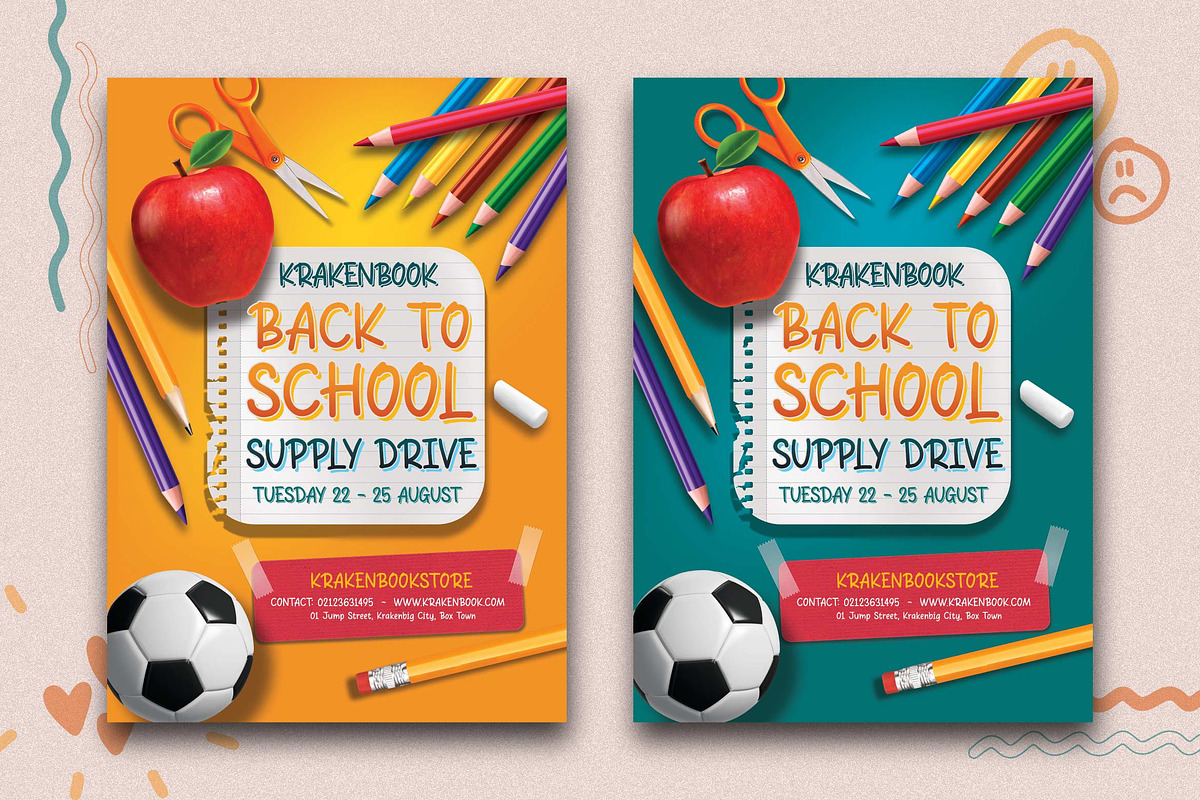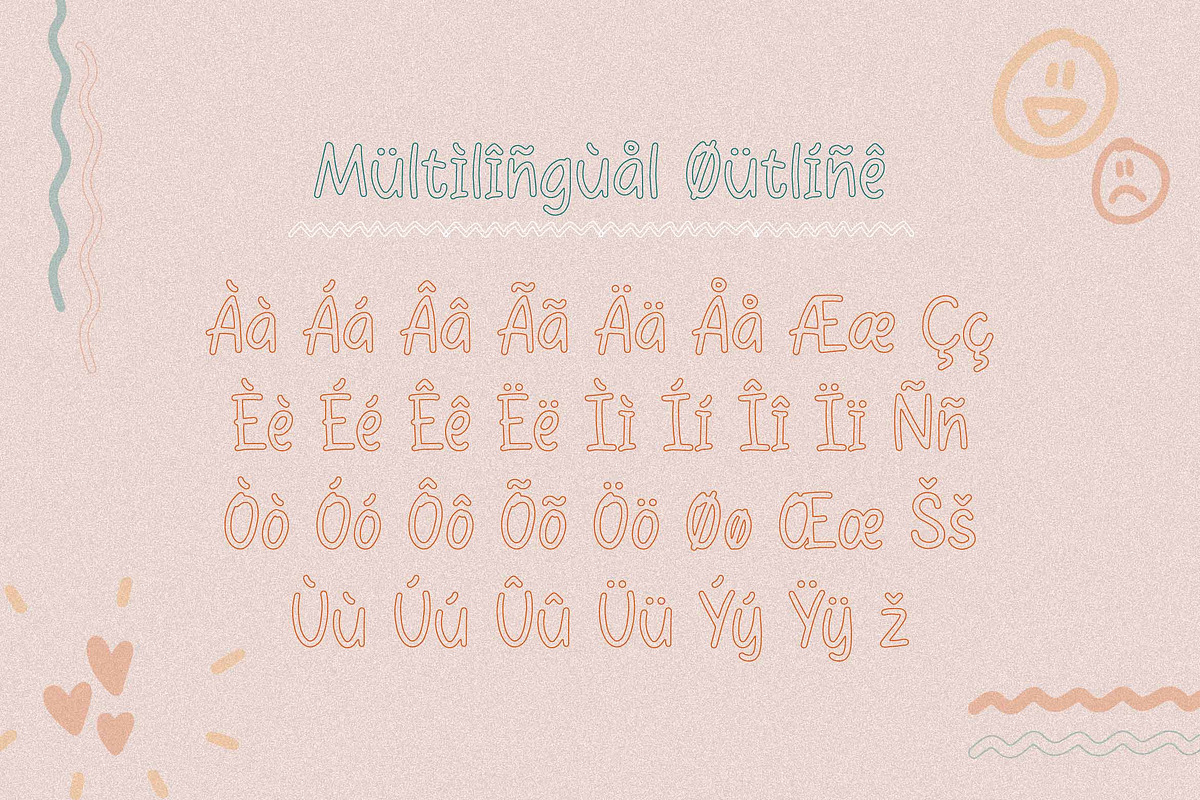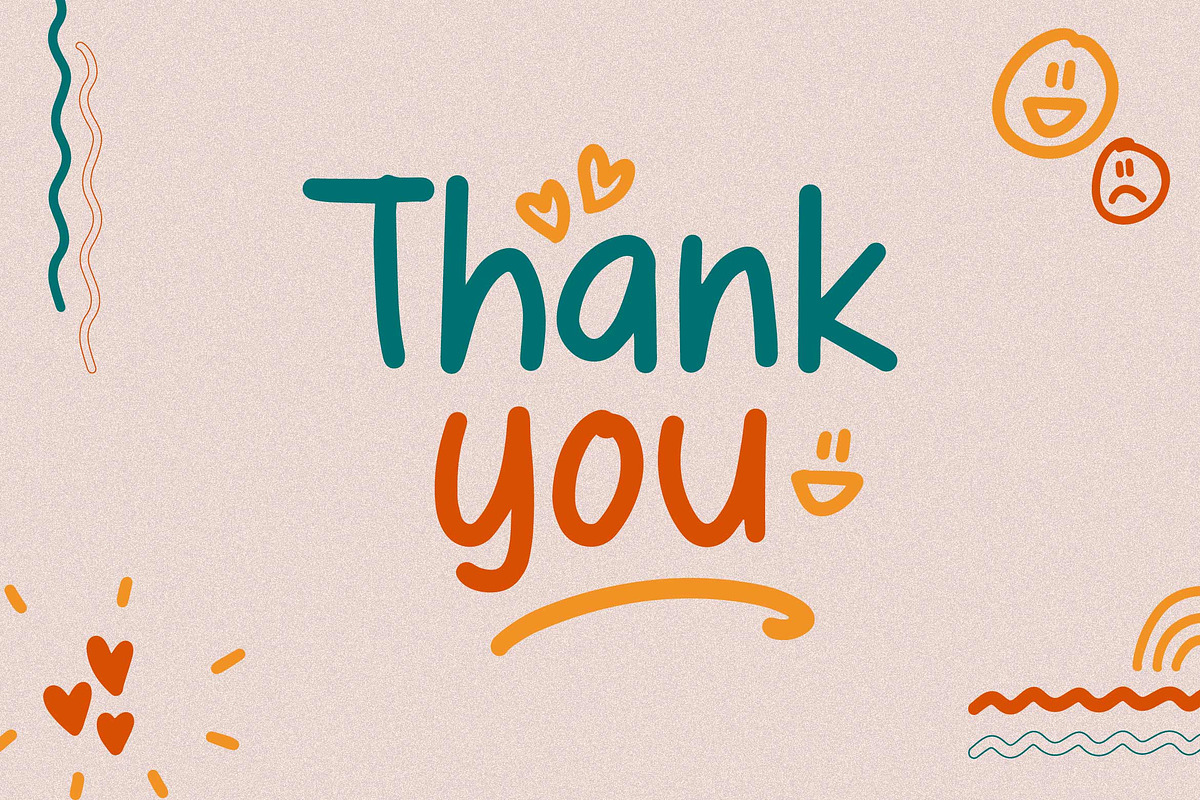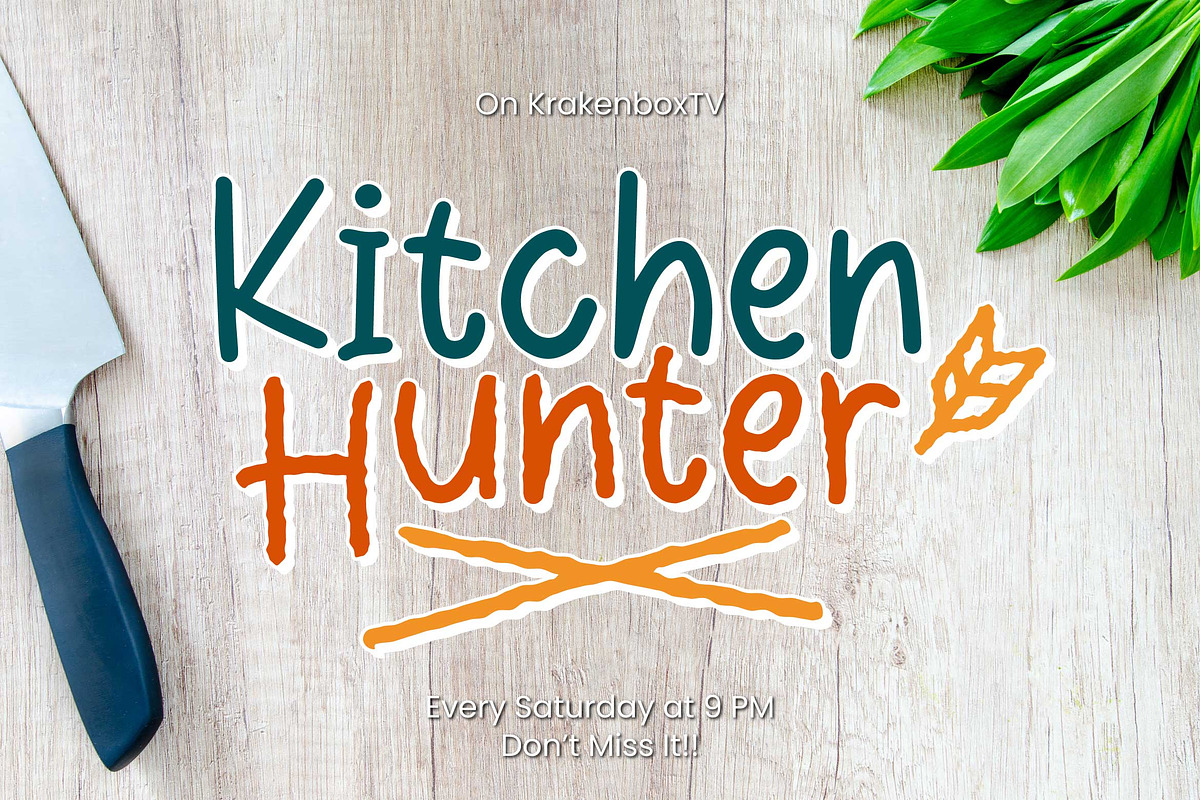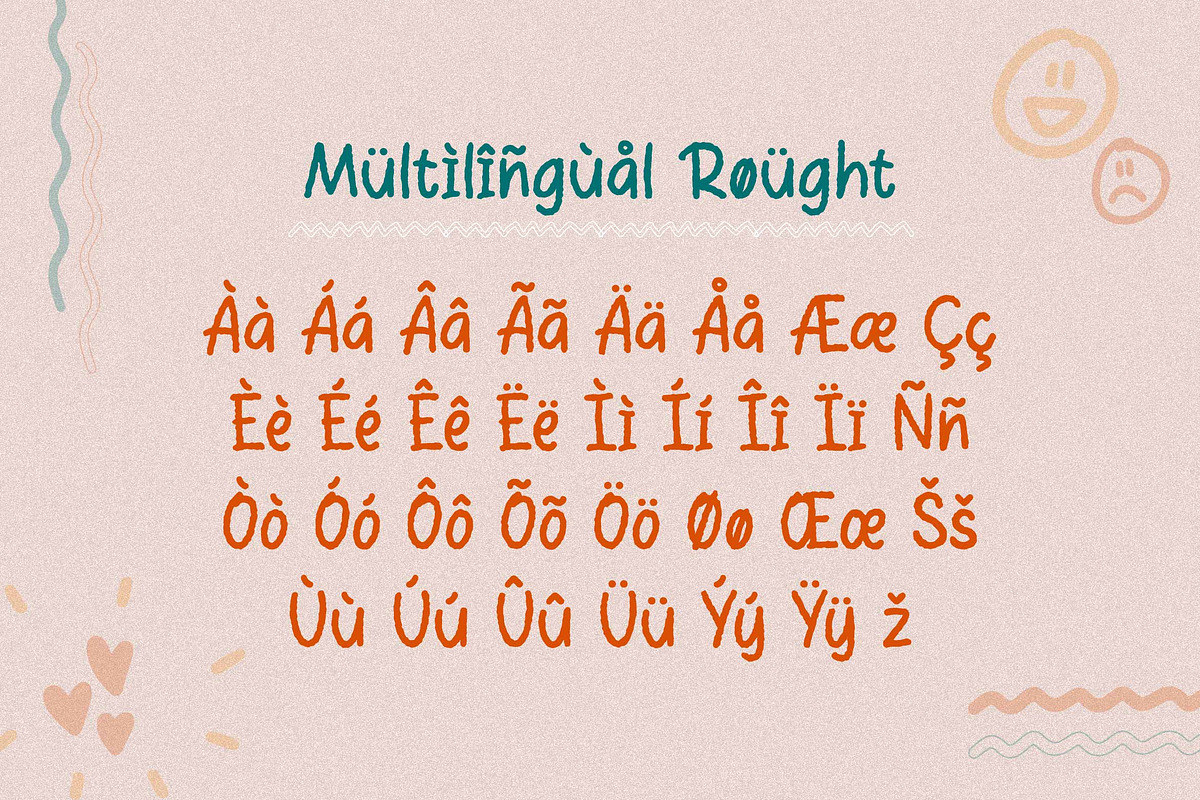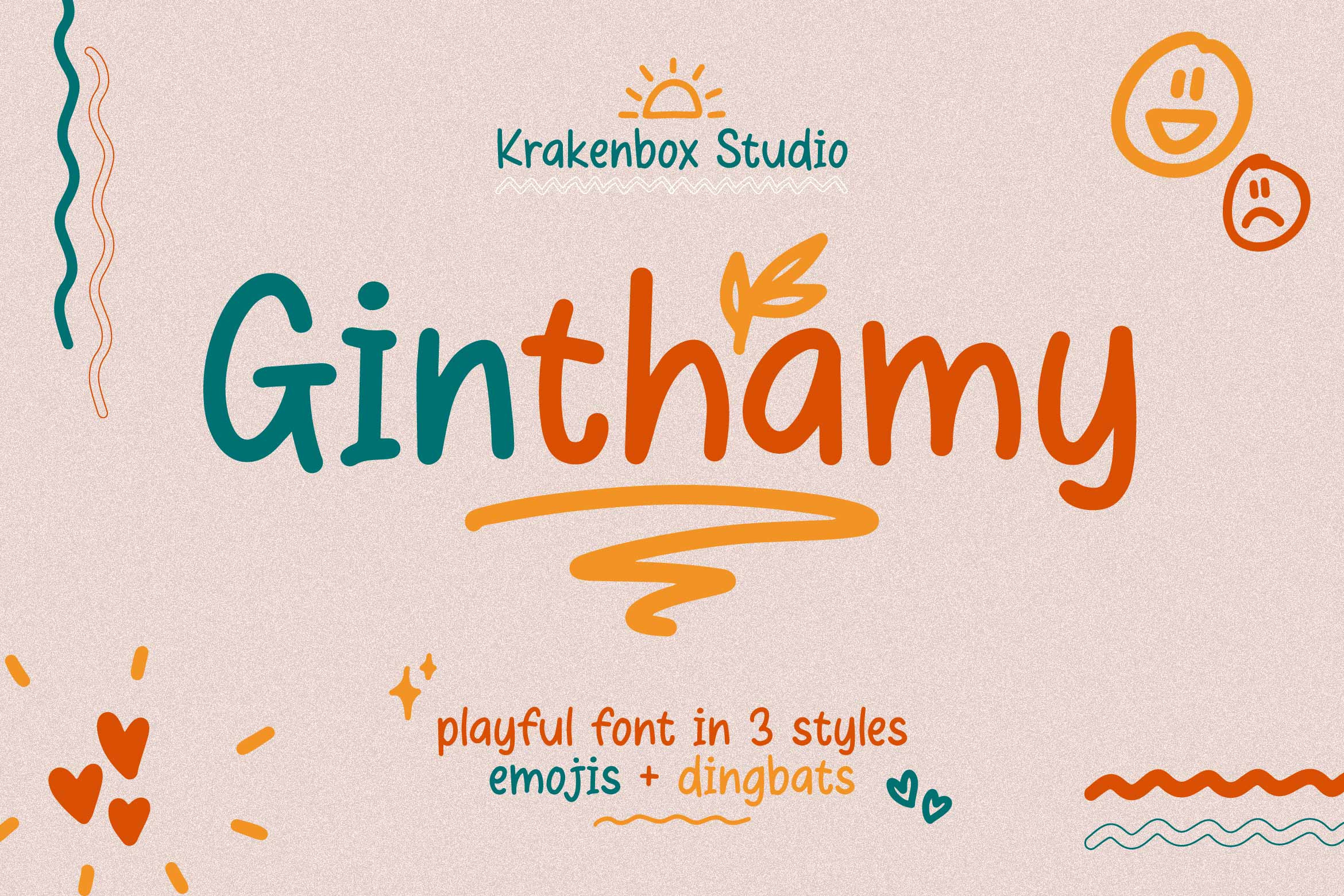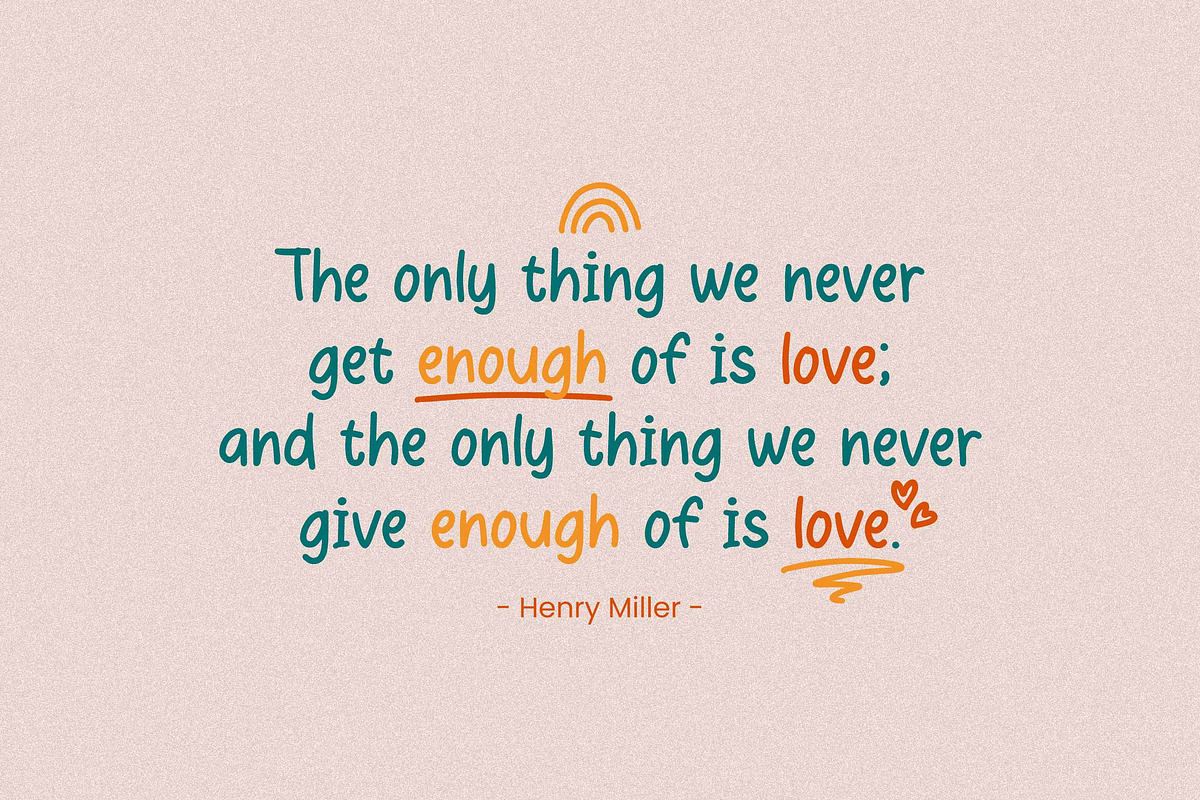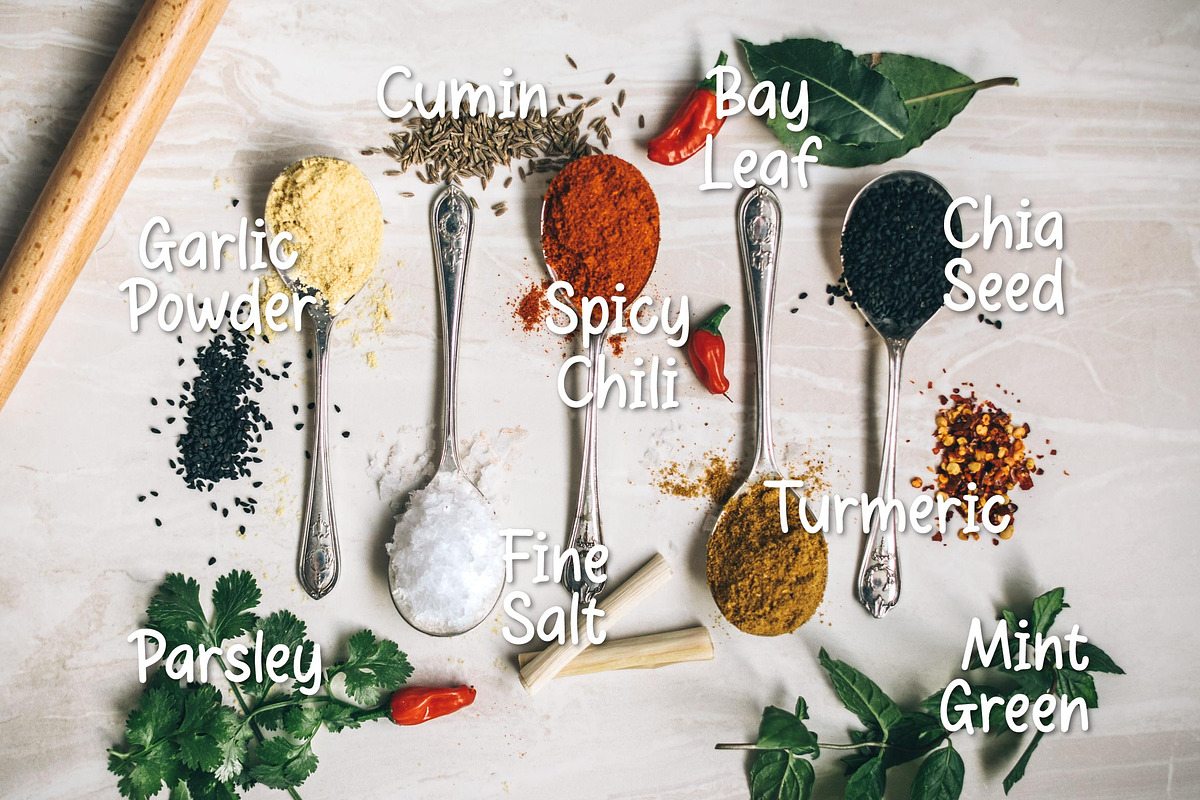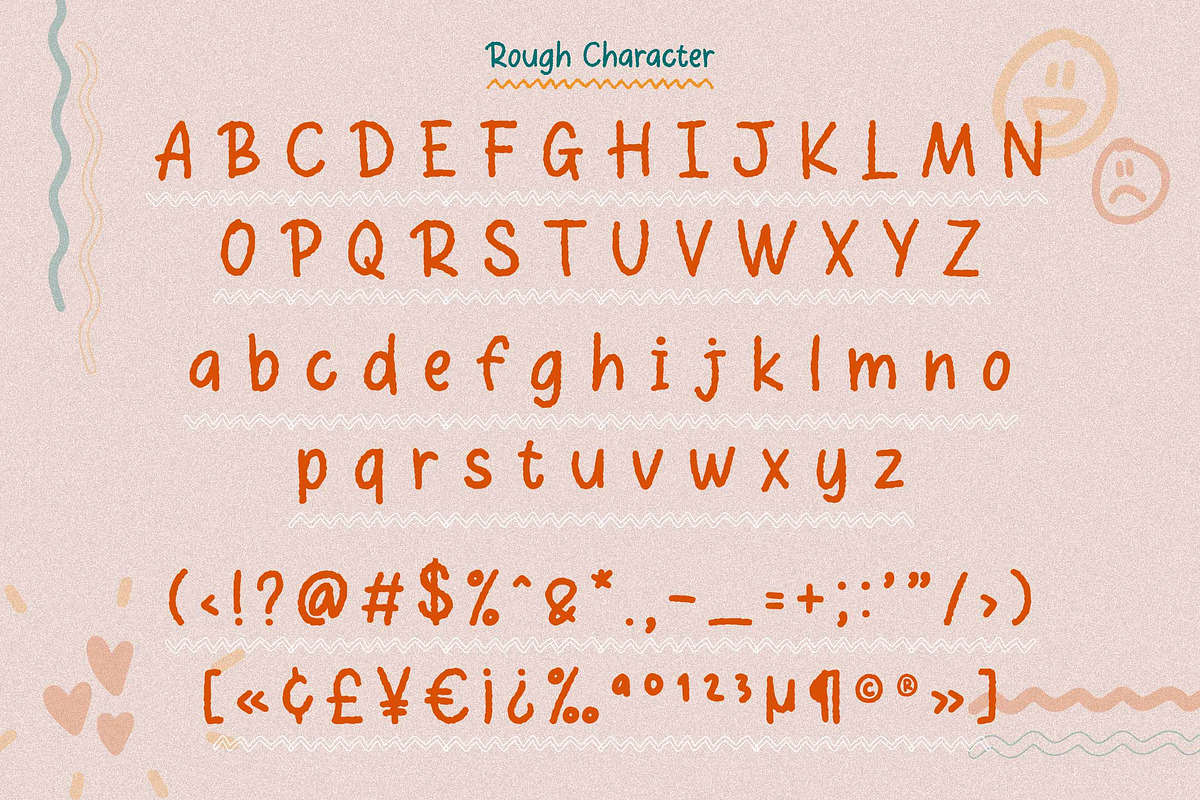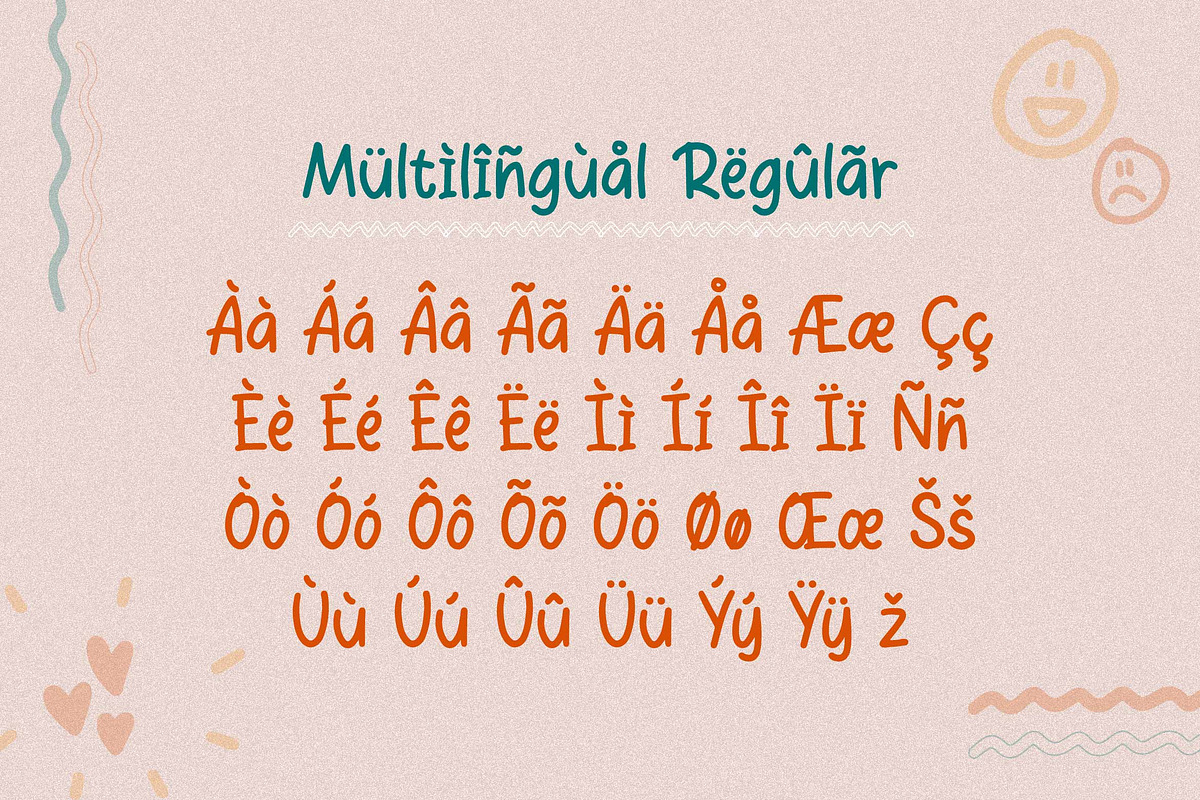
Ginthamy - Playful Font
Introducing Ginthamy - Playful Font by KrakenBox
Ginthamy is a cute and playful display font. Use this font to add that special cool touch to any design idea you can think of! It is perfect for any branding project such as logos, t-shirt printing, creative products, and more.
Ginthamy is best for:
- logos, branding, & Signatures.
- Flyers, Album cover, Magazine, & Advertisements.
- Website design , design blogs, & fashion.
- Quote graphics for social media.
- and also it works great for other projects.
- 3 Font Styles, Regular, Outline, & Rough